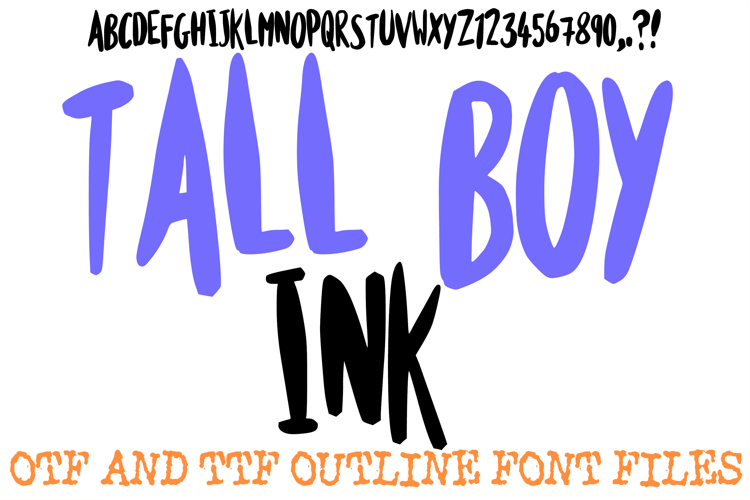
Tall Boy Ink Lettering Font Handwriting ABC OTF Type
Tall Boy Ink is a high-energy, condensed display font that perfectly captures the raw, authentic feel of hand-drawn marker lettering. Characterized by its exaggerated height and varying stroke thickness, this typeface brings a "street-art" edge and organic rhythm to any layout. It is a premier tool for designers working on bold event posters, urban apparel branding, edgy social media graphics, and contemporary editorial headlines.
Crafted with a deliberate, hand-inked texture, Tall Boy Ink balances high-impact visibility with a handcrafted touch. Whether you are designing a standout logo for a music label or creating high-contrast quote overlays for a lifestyle brand, this font’s vertical stretch and bold presence ensure your message commands the room.
Condensed High-Impact Silhouette: The tall, narrow proportions allow for large-scale lettering in tight spaces, making it perfect for vertical banners and bold titles.
Authentic Ink Texture: The subtle irregularities in the stroke weight mimic a real felt-tip marker, providing a "rough-around-the-edges" charm that feels human and approachable.
Modern Urban Aesthetic: The verticality and weight are inspired by modern street art and independent zine culture, offering an instant "cool factor" to your creative assets.
Versatile Display Use: While it’s built for headlines, the clean structure remains highly legible, ensuring it works across both digital screens and physical merchandise.